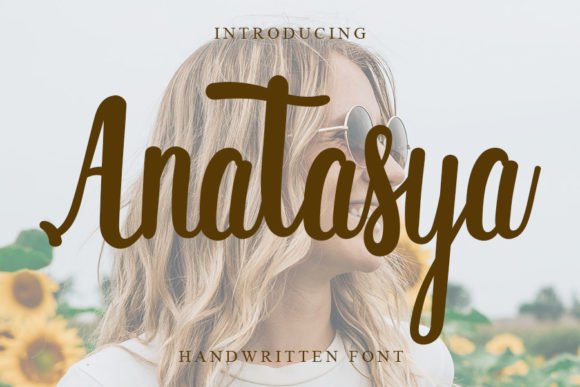
The Perfect Blend of Classic and Modern: Anatasya Font
There’s something special about holding a pen to paper and watching your ideas come to life. It’s a feeling that’s hard to replicate with digital tools, but it’s one that many designers still crave. For those who want to bring a touch of handmade charm to their digital projects, the Anatasya Font is here to help.
With its unique blend of classic calligraphy and modern flair, this font is designed to add a personal touch to your designs. Not too thin, not too thick, Anatasya Font is balanced and varied, making it the perfect choice for anyone looking to enhance the beauty of their projects. Whether you’re a graphic designer, a blogger, or simply someone who loves to create, this font is a valuable addition to your toolkit.
Anatasya Font Key Features
- Font Family: Anatasya Font is a script font designed for various applications.
- Unique Characteristics: Features a unique, handwritten style with elegant and flowing connections between letters.
- Language Support: Supports a wide range of languages, including Latin-based languages and many non-Latin scripts.
Anatasya Font Review
I recently had the chance to work with the Anatasya font, and I’m excited to share my thoughts with you.
- The unique blend of traditional and modern elements in Anatasya makes it a great choice for designers looking to add some character to their work.
- The font’s versatility shines through in its ability to be used in a variety of settings, from headings to body text.
- The designer has clearly put a lot of thought into creating a cohesive and visually appealing font family.
- One of the main limitations I found was the font’s limited language support. While it’s perfect for English, it may not be the best choice for projects that require support for multiple languages.
- The font’s thickness and weight could be more nuanced, which can make it feel a bit one-dimensional at times.
Overall, I’m really impressed with the Anatasya font. While it may have some limitations, its unique character and versatility make it a great addition to any designer’s toolkit. With a bit more attention to detail on language support and weight variation, I have no doubt that this font will continue to grow and improve.
Anatasya font is ideal for use in creative projects, such as:
- Artistic and creative posters
For the most out of Anatasya font, experiment with different font sizes, colors, and styles to create a unique and eye-catching design.